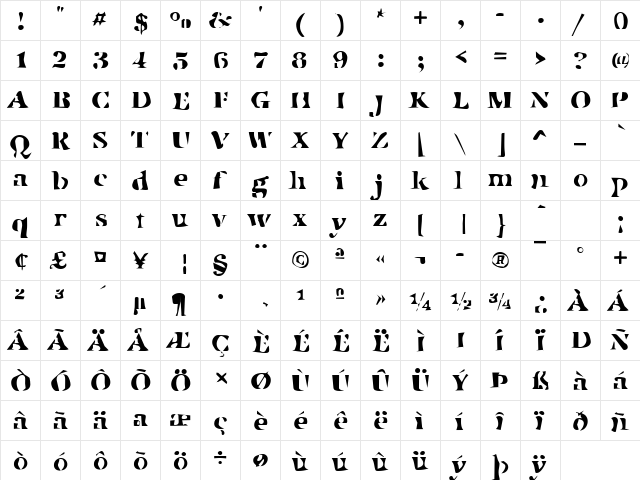
DTCDirtyM49 Regular Font Preview
DTCDirtyM49 Regular
Design Context for DTCDirtyM49 Typeface
DTCDirtyM49 is a composed and adaptable typeface that performs quietly and consistently across a wide range of design contexts.